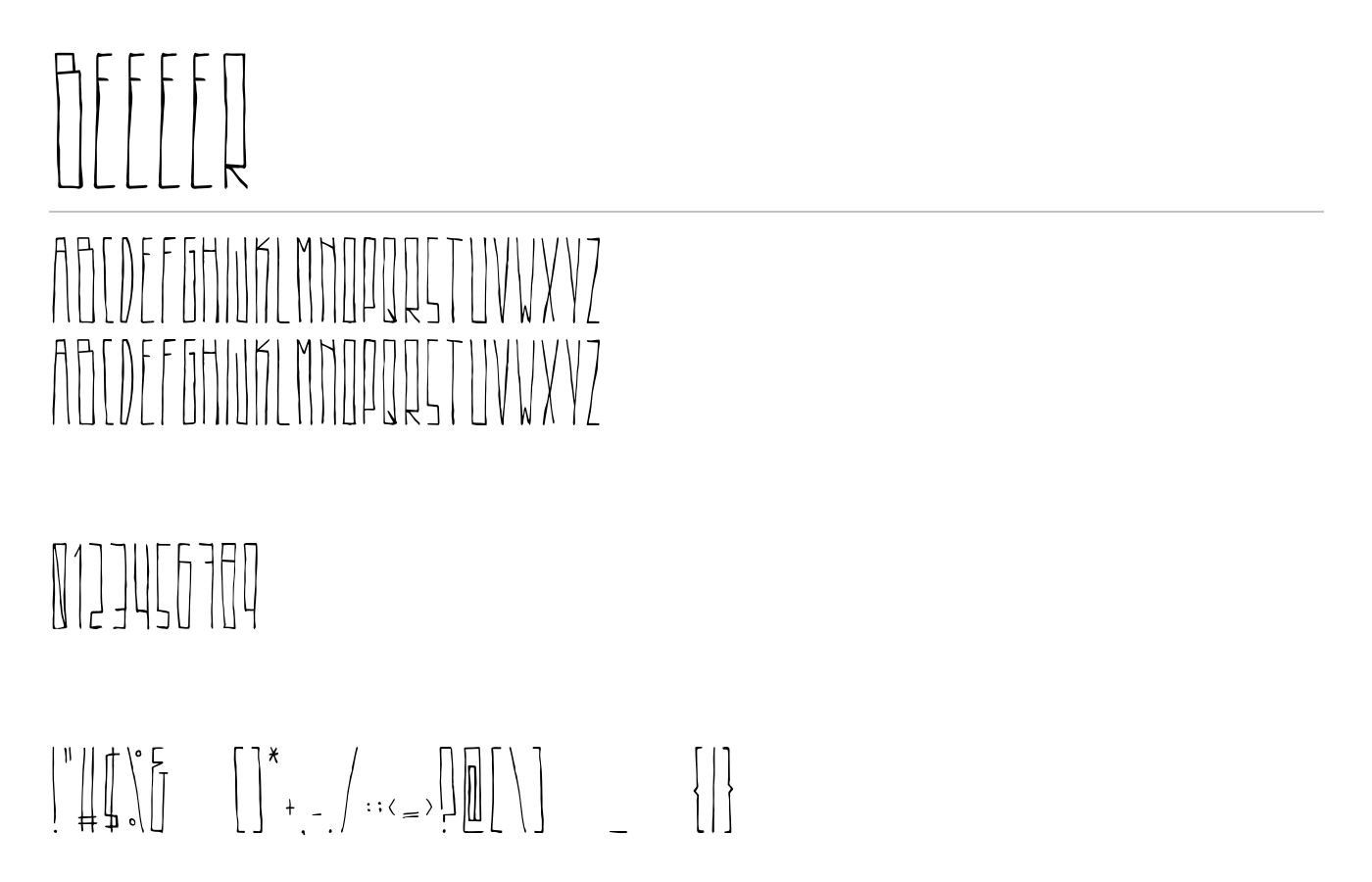
Beeeer is a thin, tall, and narrow sans serif font that exudes a quirky, hand-drawn charm. Its slender letterforms with slightly irregular strokes give it a playful and informal feel, making it ideal for creative projects that want to stand out with a unique, casual voice. This font works well in logos, posters, and editorial designs where a light, whimsical touch is desired.
Beeeer Font
About Beeeer Font
| Font family | Beeeer Font |
| Designer | Noe Araujo |